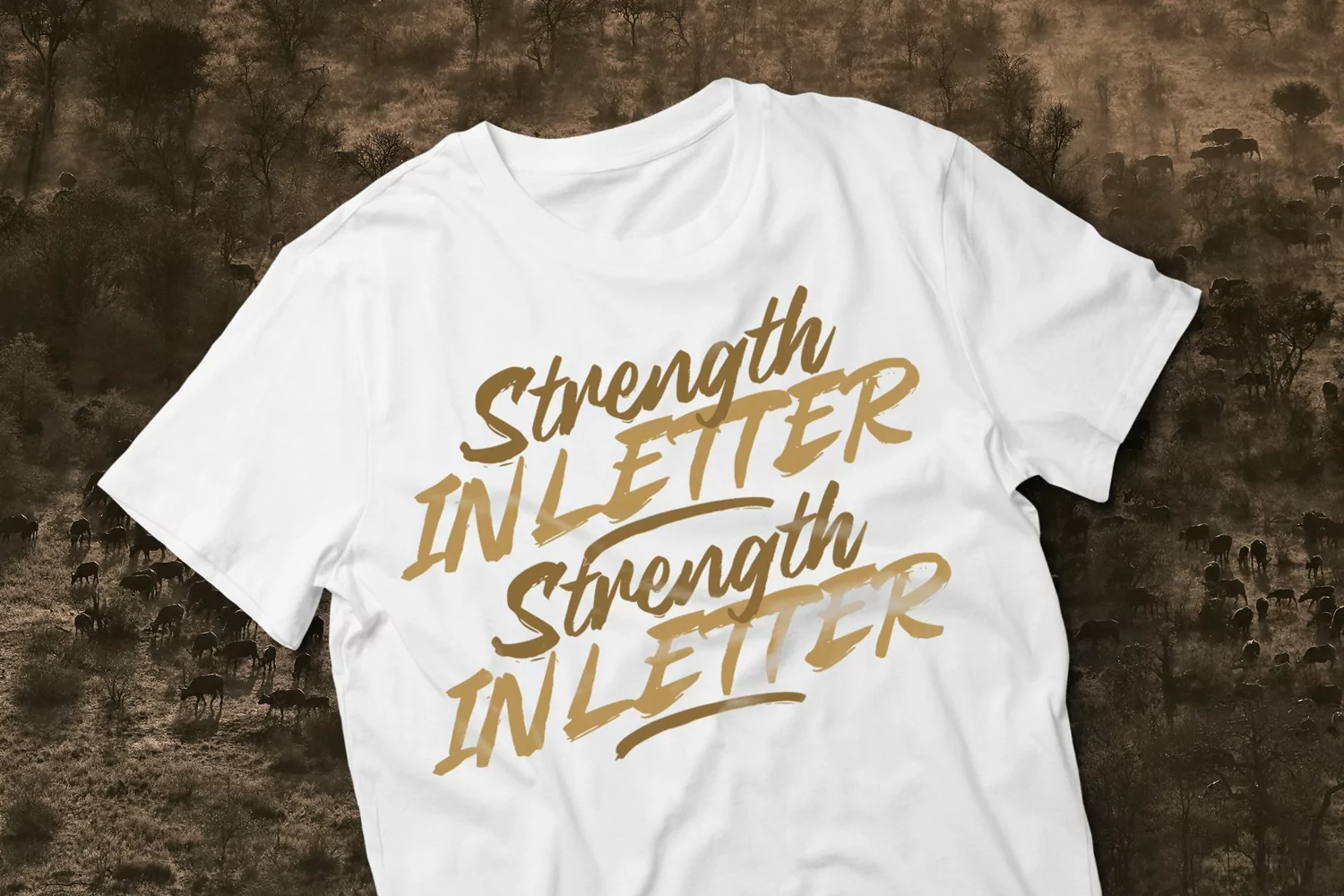
Kayden is an edgy, brush script. All handmade and then vectorized. Perfect for T-shirts or cards, wedding invitations, Instagram photos or interactive designs, it covers it all.